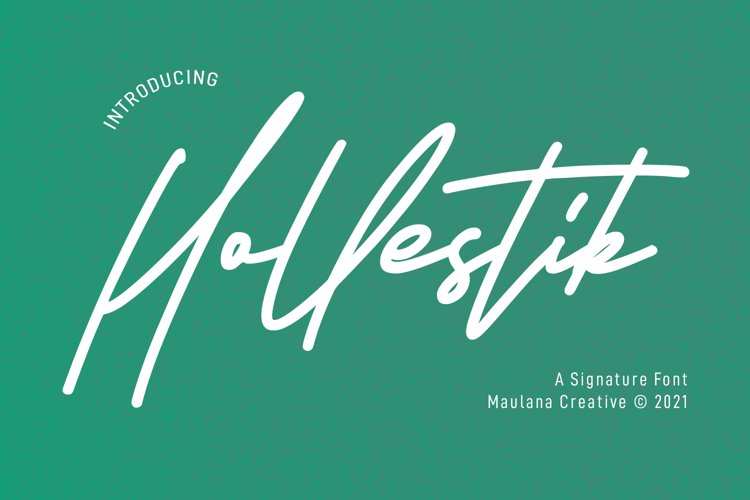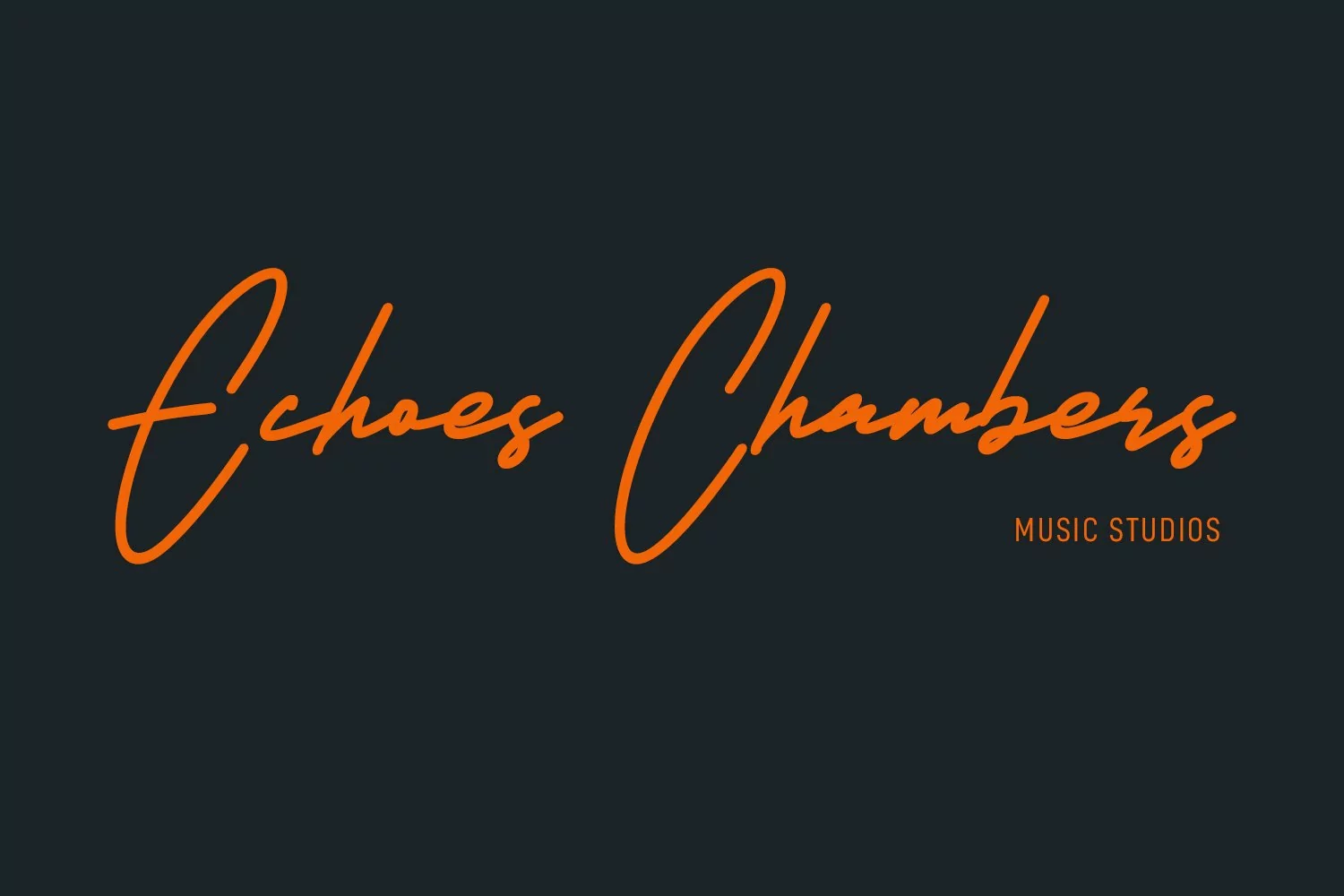
Hollestik is a casual signature font. With mono-line stroke, slanted and fun character with a bit of ligatures and lowercase alternates. To give you an extra creative work. Hollestik font support multilingual more than 100+ language. This font is good for logo design, Social media, Movie Titles, Books Titles, a short text even a long text letter and good for your secondary text font with sans or serif. Make a stunning work with Hollestik font.